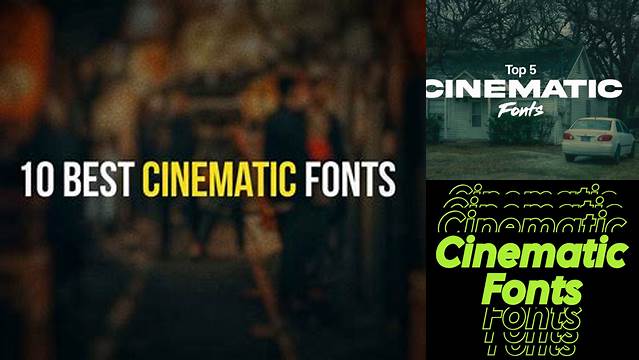
What Are Cinematic Fonts, Anyway?
So, what exactly are cinematic fonts? Think about your favorite blockbuster movies, the title sequences of an intense drama, or the epic opening of a fantasy series. The fonts used in these productions aren't just random choices; they're carefully selected to convey a specific feeling, an era, or a genre. Cinematic fonts are designed to evoke drama, emotion, grandeur, or even suspense, making them perfect for anything from movie titles and trailers to YouTube intros and video game promotions. These aren't your everyday Arial or Times New Roman, folks. They often feature strong, impactful serifs, elegant curves, modern sans-serif boldness, or even distressed textures that hint at a deeper narrative. They're about creating an atmosphere, a visual hook that grabs your audience right from the start. Whether you're aiming for the classic Hollywood glamour, a gritty sci-fi vibe, or a mysterious film noir feel, there's a cinematic font out there that speaks that language. They play a huge role in visual storytelling, adding a layer of professionalism and intrigue that simple text just can't match. Getting your hands on a cinematic fonts pack free download can seriously upgrade your creative toolkit without costing you a dime, which is pretty awesome, right?
Why Use Cinematic Fonts in Your Projects?
Using cinematic fonts pack free download options in your projects isn't just about making things look pretty; it's about making them impactful. Think about it: when you see a beautifully crafted title sequence with a killer font, doesn't it immediately set the tone for what you're about to watch? That's the power of cinematic typography! These fonts inject a sense of professionalism and high production value, even if you're working on a shoestring budget. For content creators, designers, and filmmakers, they're essential tools for creating a strong first impression. They help establish your brand's identity, communicate the emotional core of your message, and differentiate your work from the crowd. Whether you're making a short film, a YouTube documentary, or a stunning presentation, a well-chosen cinematic font can elevate your content from amateur to expert-level. It's about crafting an experience for your audience, drawing them in and making them feel something. Seriously, guys, don't underestimate the psychological impact of typefaces. A font can be elegant, terrifying, futuristic, or historical, and it tells a story even before the dialogue begins. Investing a little time in finding the perfect cinematic fonts pack free download will pay dividends in audience engagement and perceived quality, giving your projects that extra edge they deserve.
The Power of Visual Storytelling Through Typography
At its heart, visual storytelling is about conveying a narrative and emotion through imagery, and typography, especially cinematic fonts, is a massive part of that. Imagine trying to create a spooky horror film title with a bubbly, cartoonish font – it just wouldn't work, right? The very shape, weight, and style of a cinematic font instantly communicate genre, mood, and narrative depth. It's more than just words on a screen; it's an integral component of the visual experience. These fonts contribute to the overall aesthetic, helping to build a believable world for your audience. For instance, a rugged, distressed serif font might evoke a historical epic or a gritty Western, while a sleek, minimalist sans-serif could perfectly fit a high-tech sci-fi thriller. The right typography helps to establish authenticity and credibility, pulling viewers deeper into the story you're trying to tell. When you're looking for a cinematic fonts pack free download, you're not just collecting letters; you're collecting tools for emotional connection. Each font has a unique personality, and understanding how to match that personality with your story's tone is key to powerful visual communication. So, next time you're crafting a title, think about the story those letters are telling, even before they form a single word. It’s all about creating an immersive and engaging experience for your audience.
Finding the Best Free Cinematic Fonts